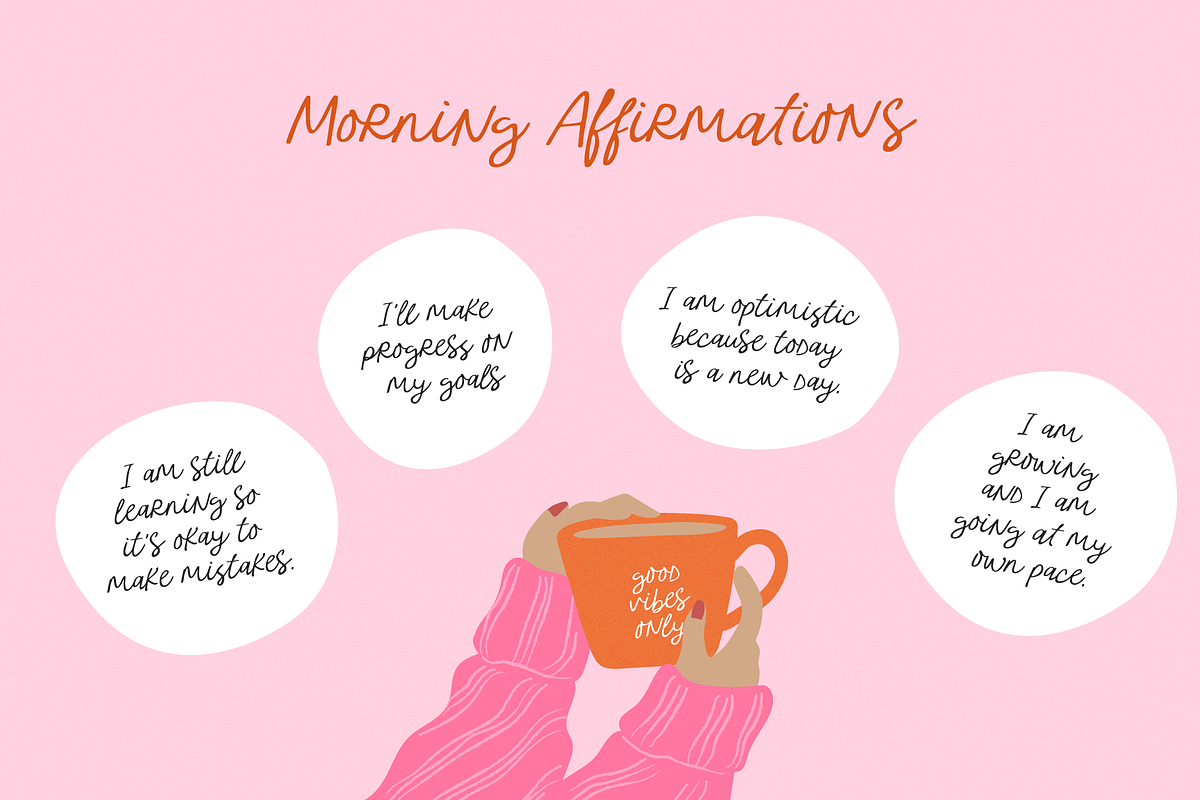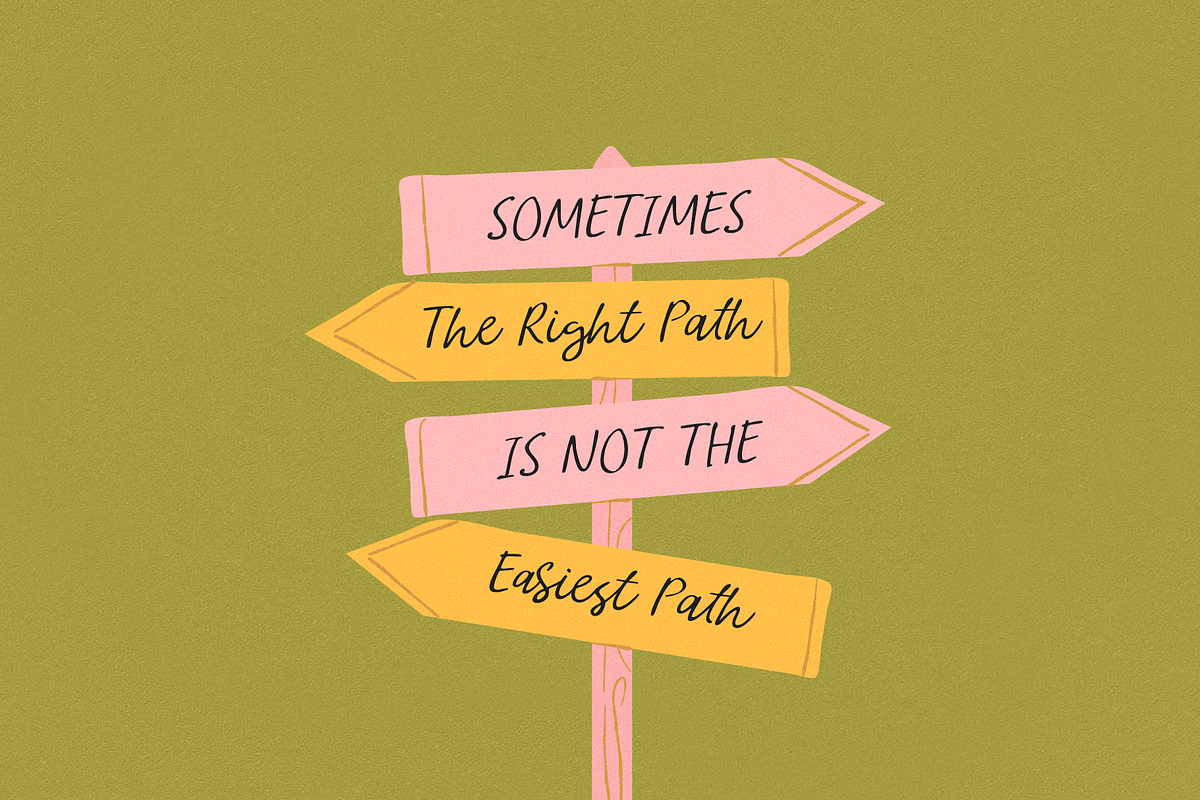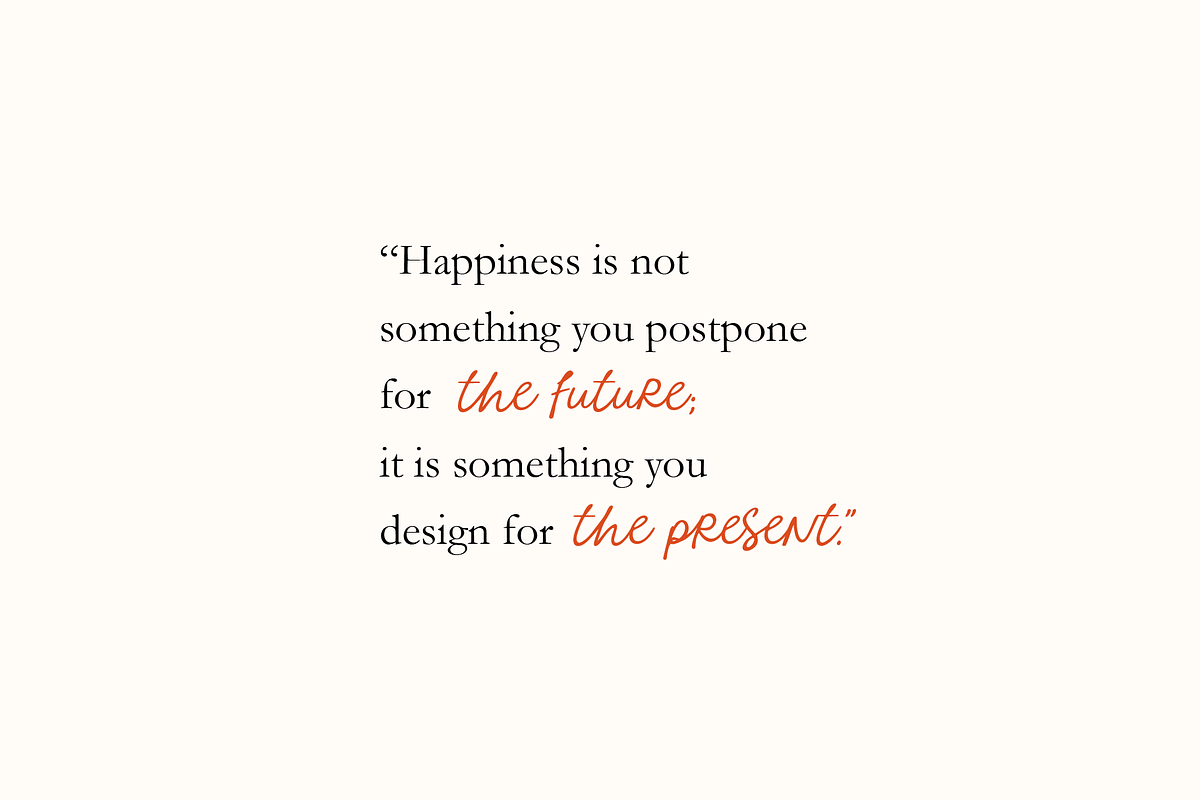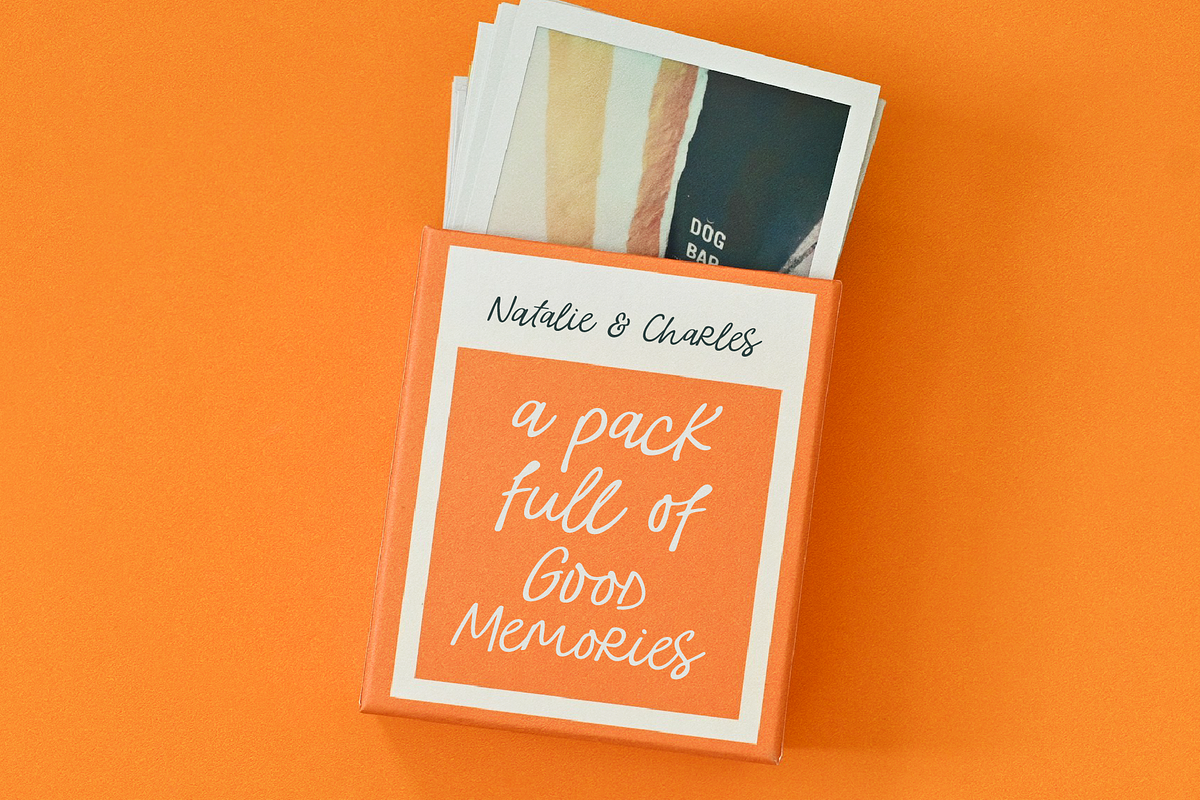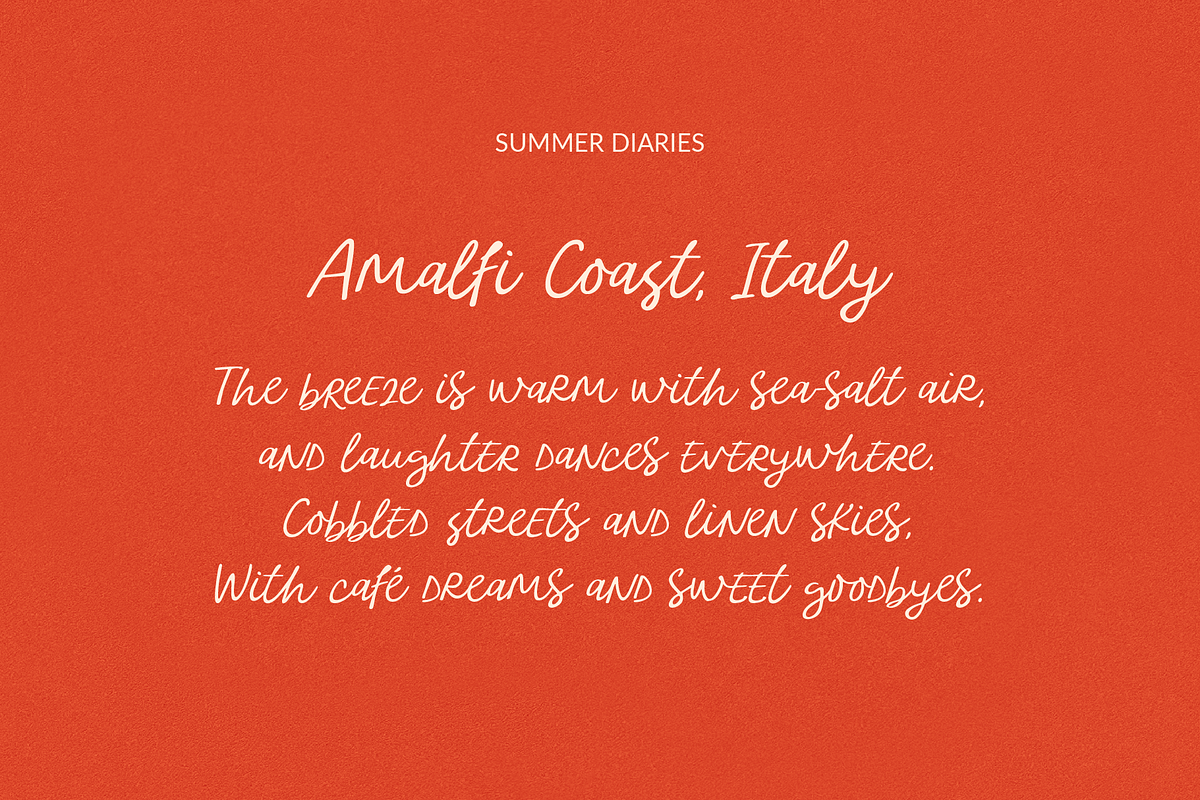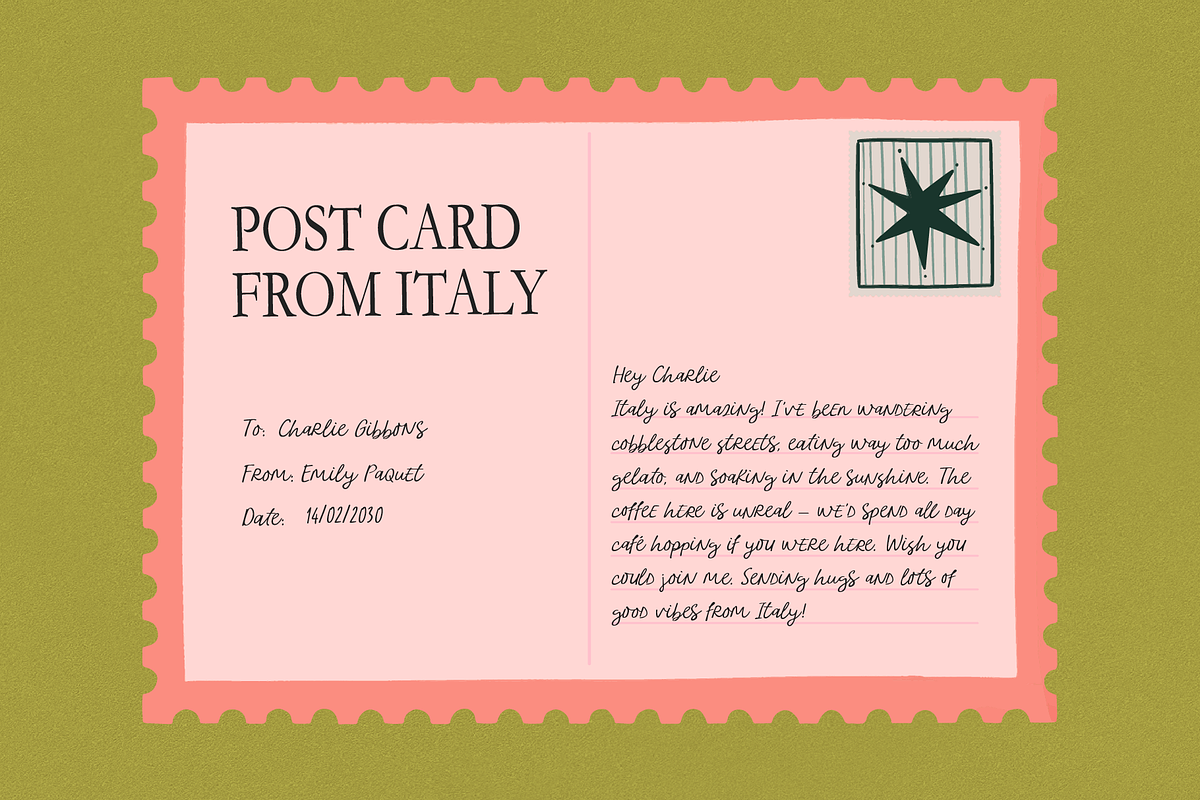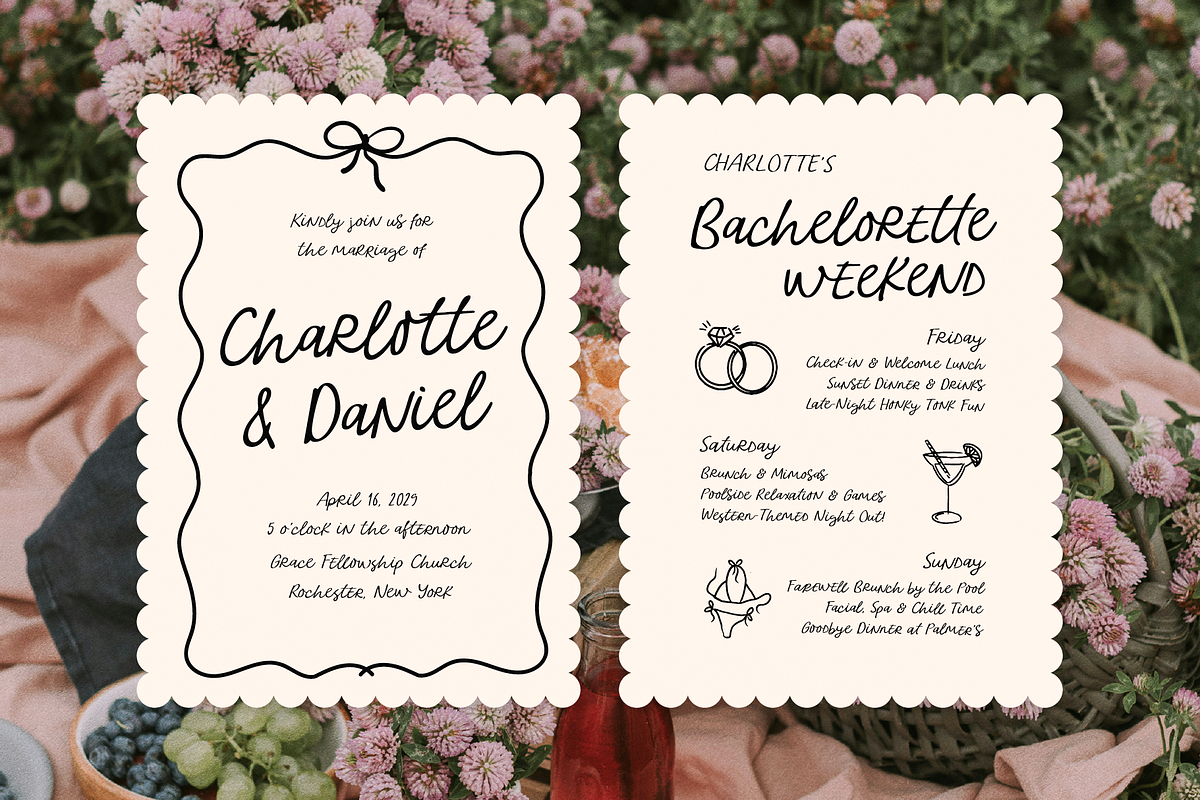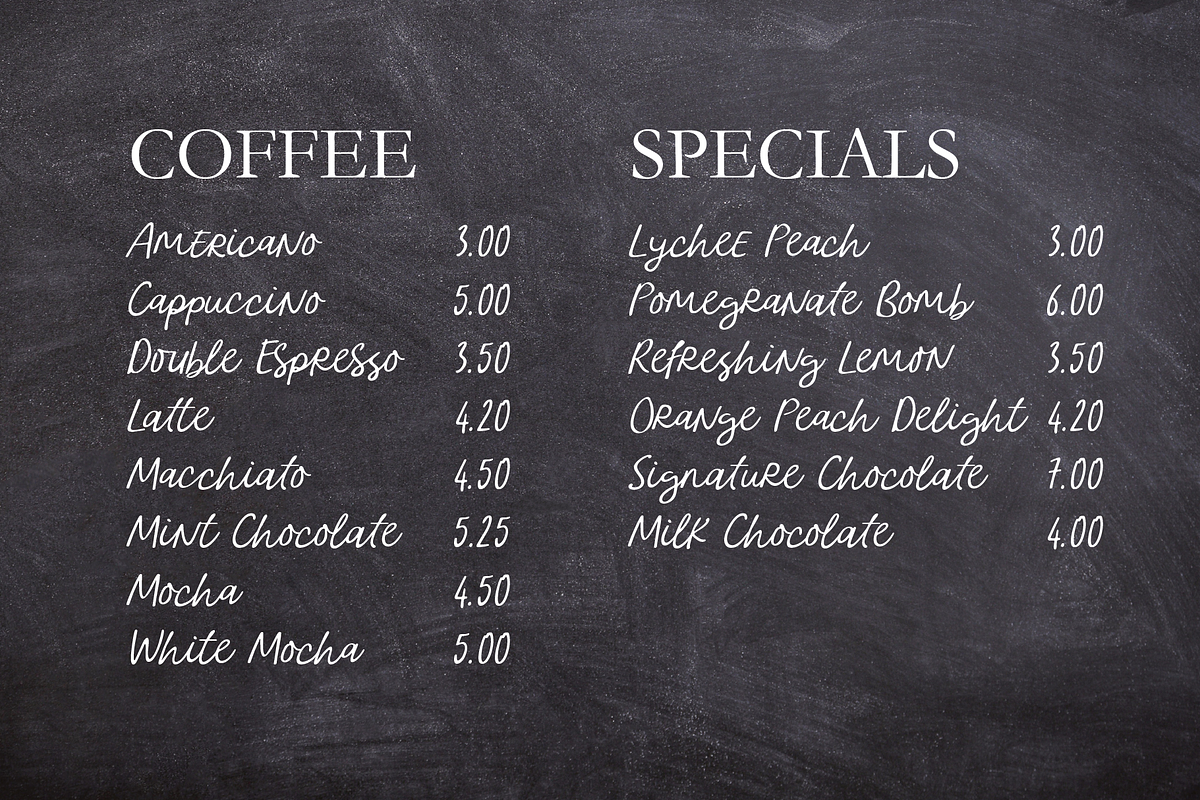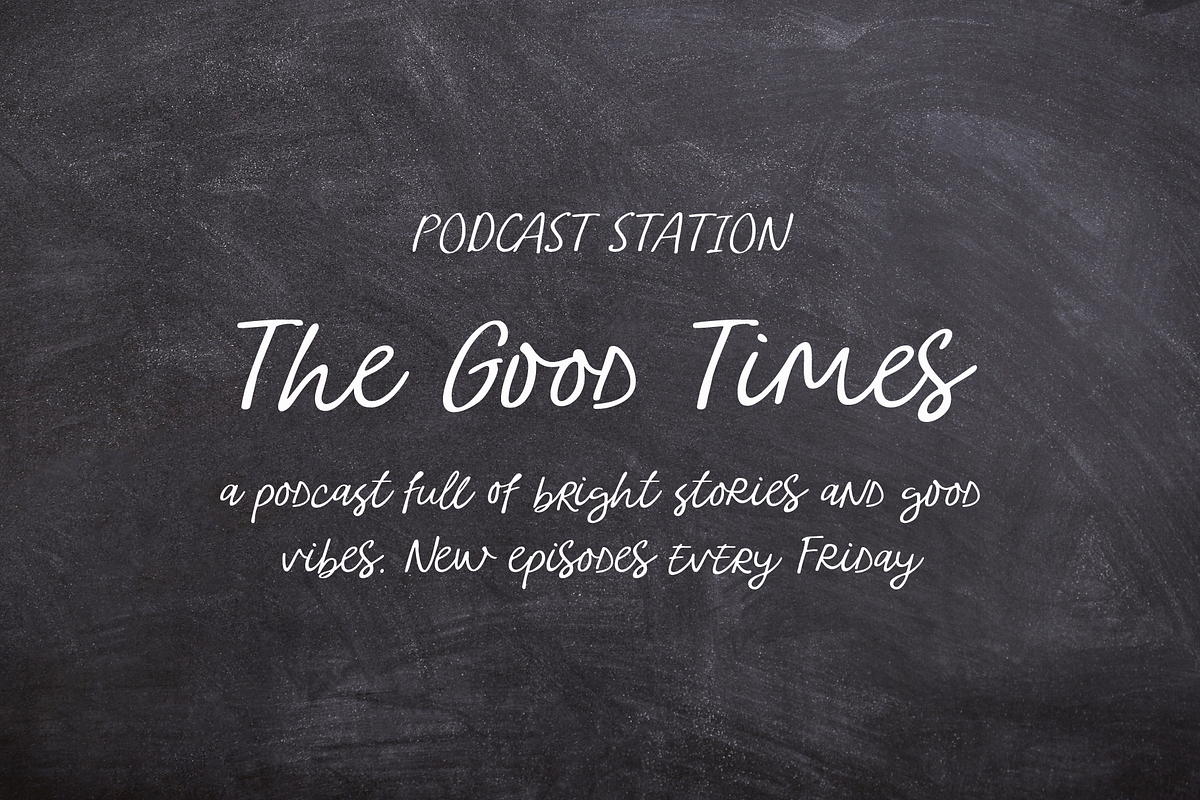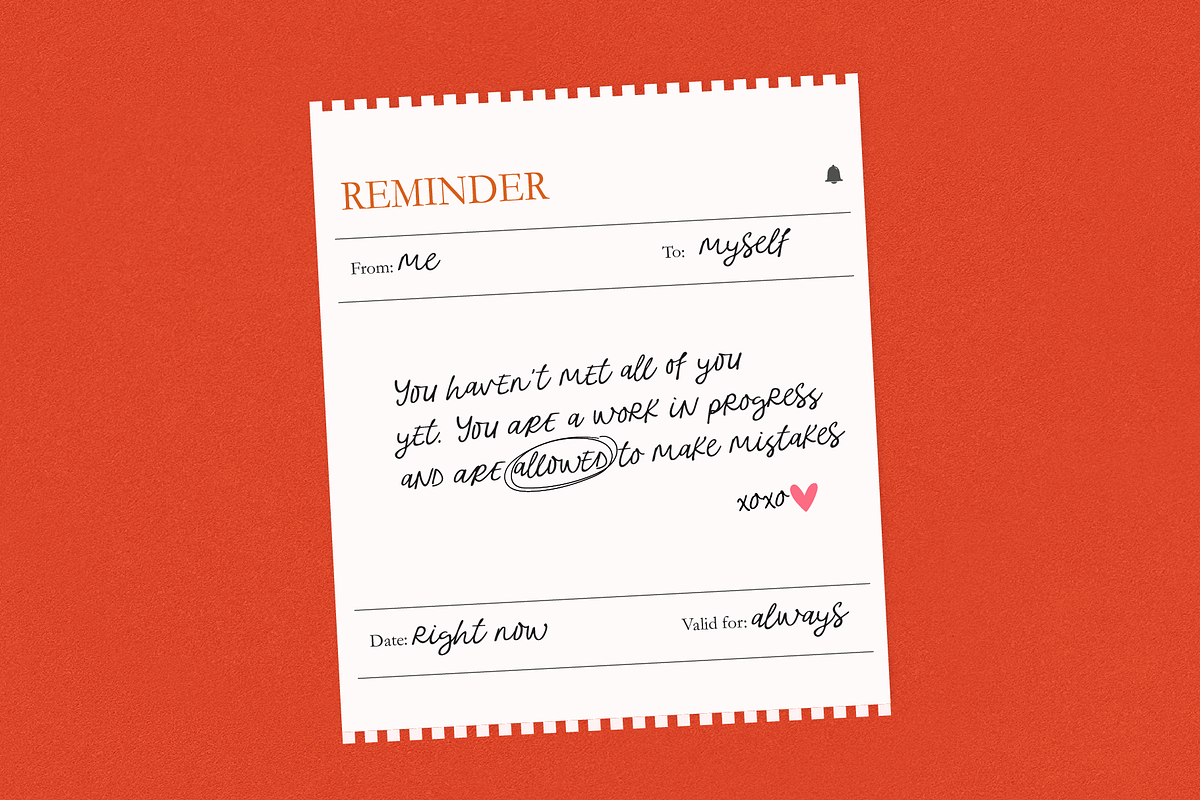
Spontaneous Charm Quirky Script Font
Introducing Spontaneous Charm, a super quirky script font with lively ligatures. It is great for social media, craft projects, invitations, greeting cards, logos, branding, printed goods or anything that requires a touch of personality.
FONT FEATURES
• Handwritten script
• Standard characters (lowercase, uppercase, numbers, punctuation)
• 50 Ligatures